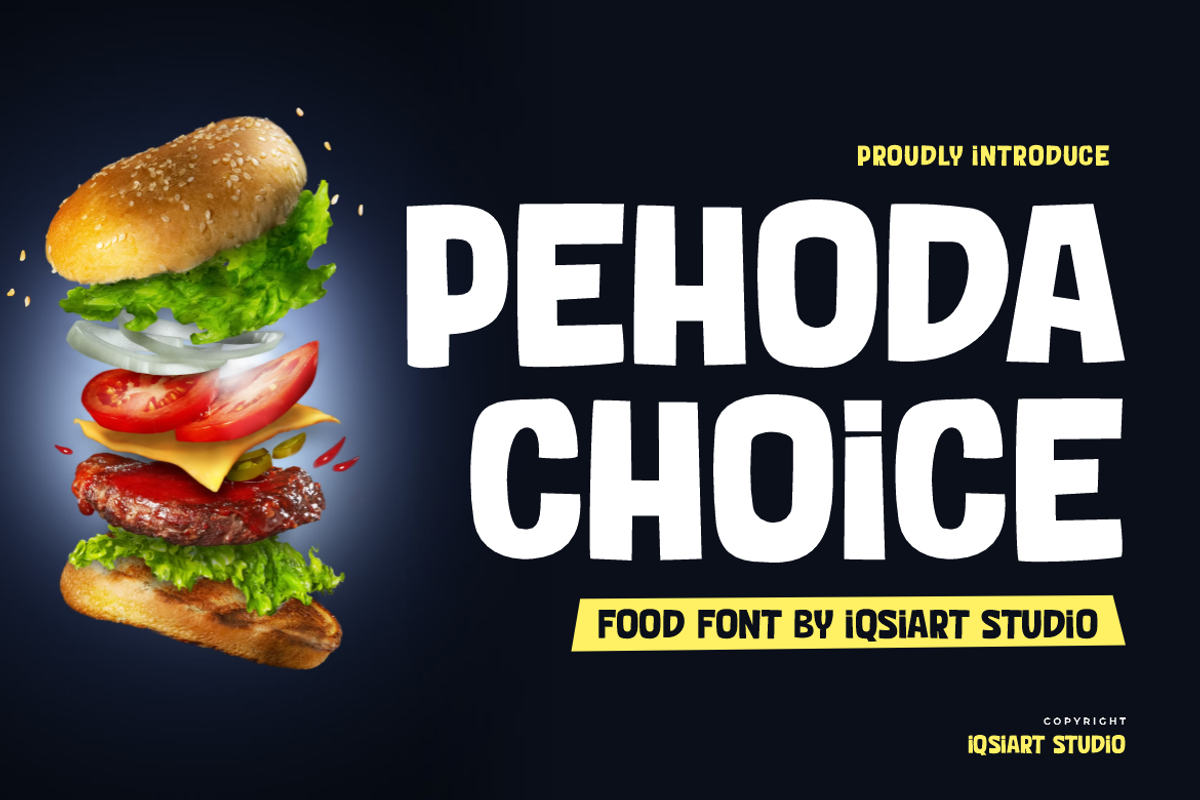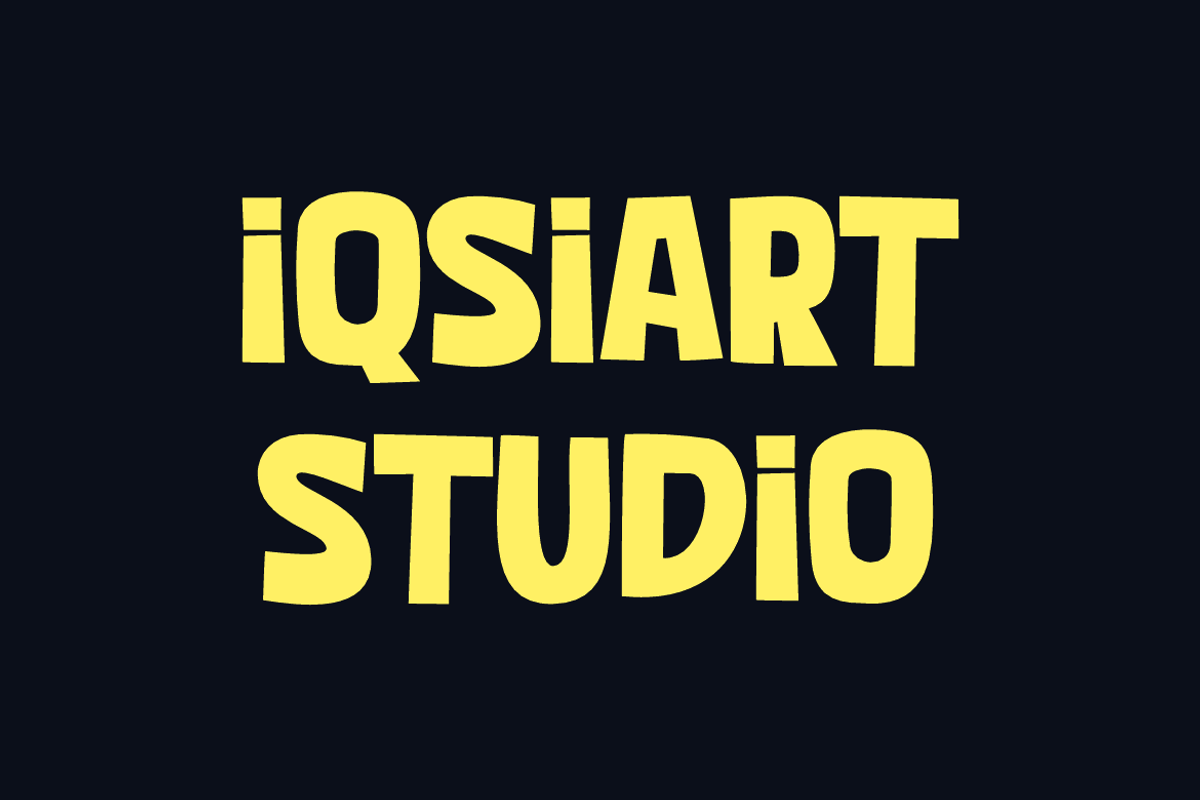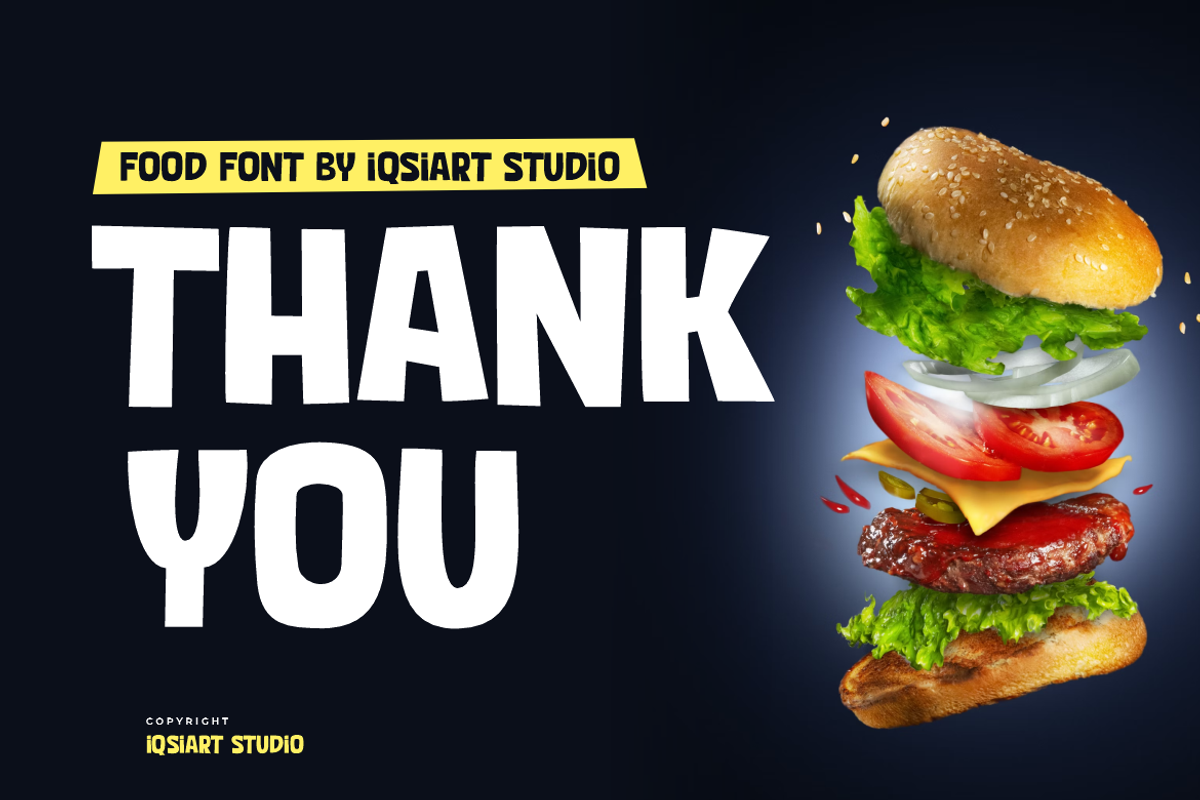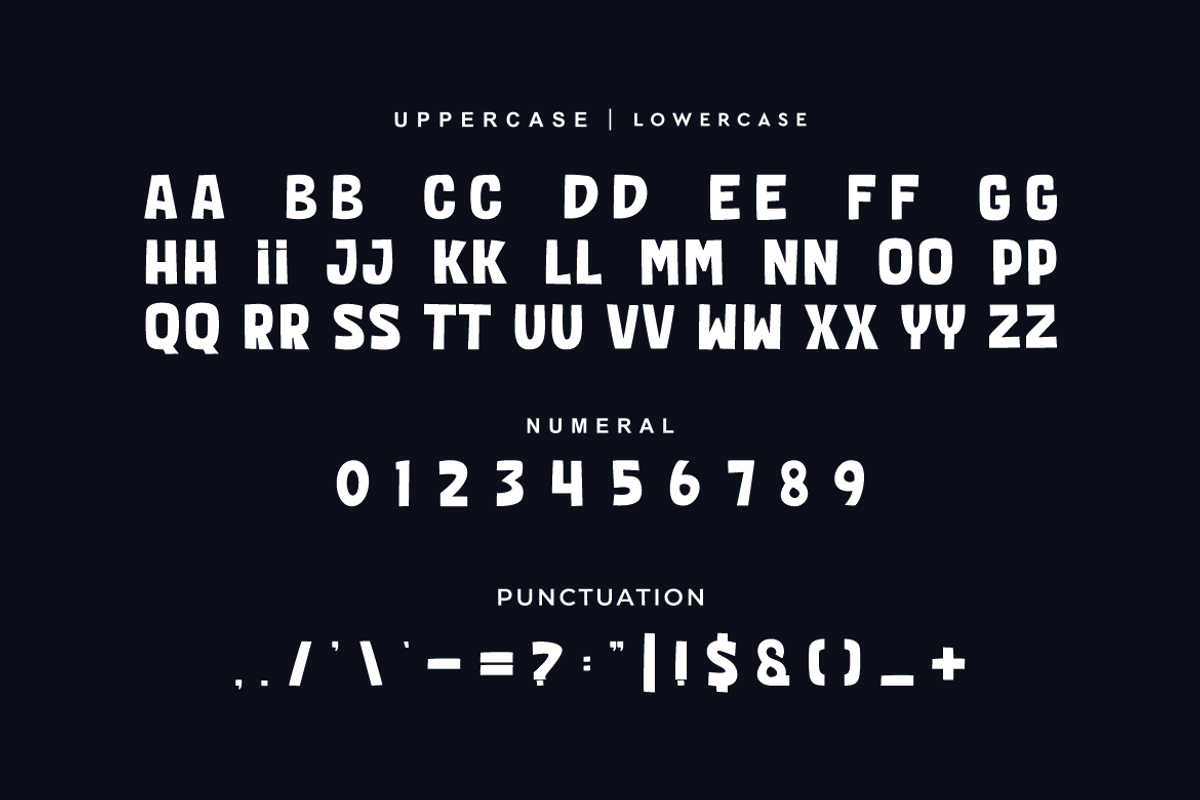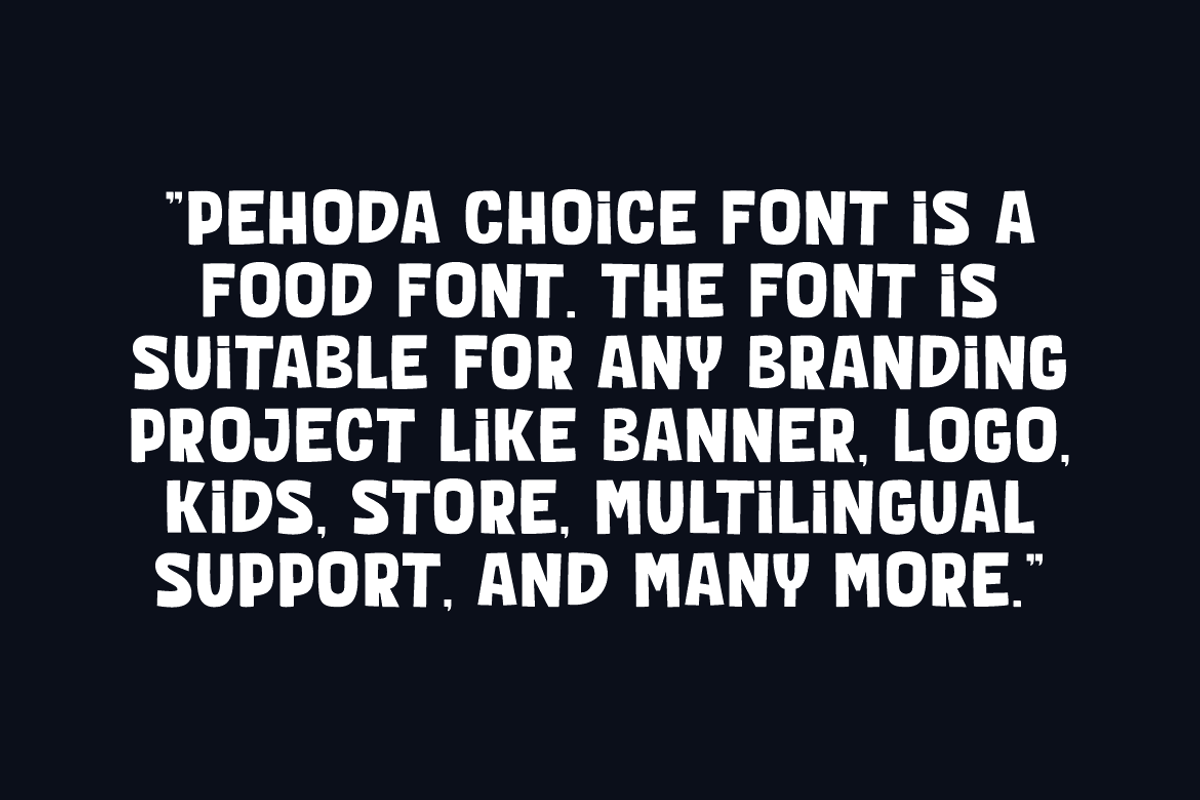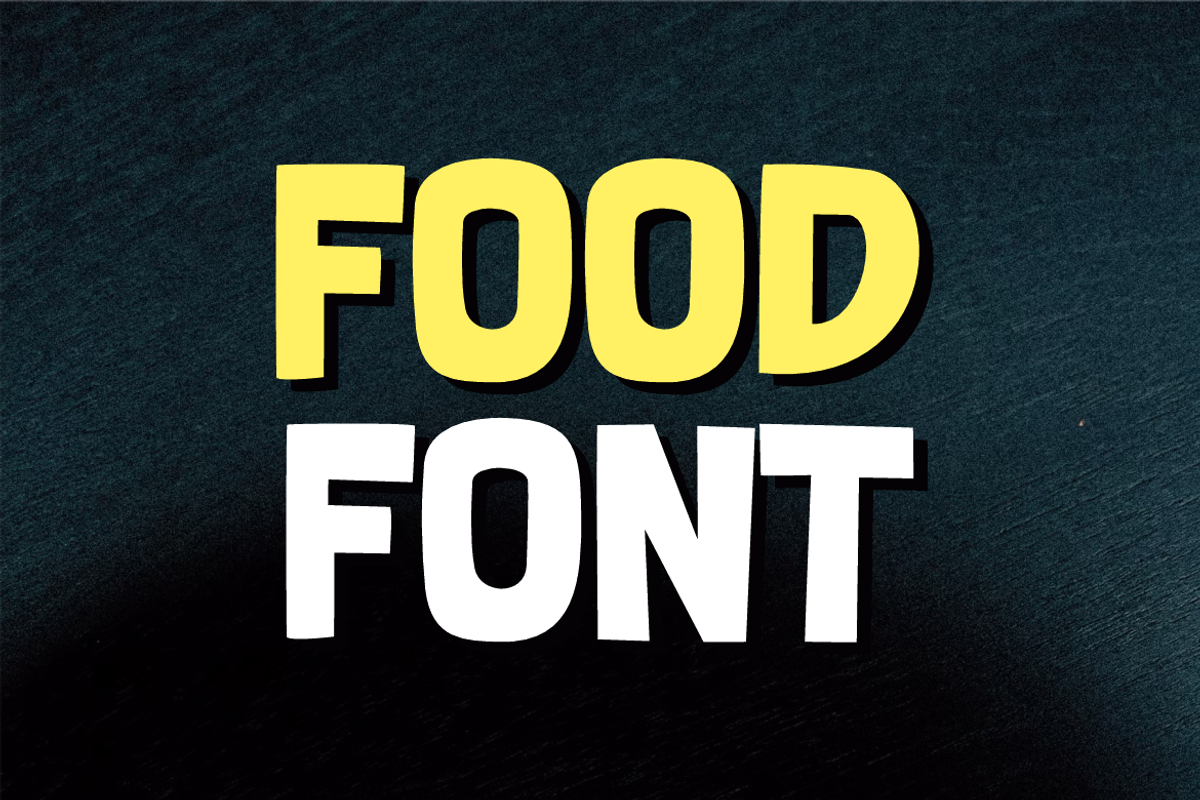
Pehoda Choice - Food Font
Pehoda Choice Font is a best and authentic display font. This font can be used for your various needs. We provide various themes and font styles. visit our profile to get a wide variety of themes and different font styles you need.